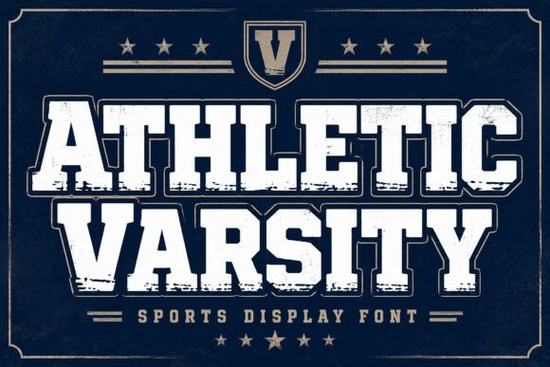
When it comes to creating designs that capture the spirit of sports and competition, the Athletic Varsity Font is a standout choice. This textured sports display font brings the raw energy of the stadium to your graphics, making it perfect for high-impact team sports branding, championship tournament apparel, and more.
Why Choose Athletic Varsity for Your Designs?
Athletic Varsity is designed with heavy, square collegiate block slabs, wrapped in an integrated contour outline. The rugged, weathered texture adds a touch of authenticity, making it ideal for designs that need to channel the grit, sweat, and glory of game day. Whether you're working on a project for a local sports team or a major athletic event, this font commands attention and conveys a sense of strength and determination.
Perfect for a Variety of Creative Projects
This typeface is not just limited to sports-related designs. It's also a great fit for:
- Stadium merchandise
- Esports team headers
- Collegiate gym apparel layouts
- Event posters and flyers
- Social media graphics
How to Use Athletic Varsity in Your Designs
Incorporating Athletic Varsity into your design projects is straightforward. Here are some tips to get you started:
- Choose the Right Background: To make the most of the font's texture, use a clean, simple background. This will help the text stand out and draw the viewer's eye.
- Play with Colors: Experiment with different color combinations to find what works best for your design. Bold, vibrant colors can complement the font's strong, energetic feel.
- Combine with Other Fonts: Pair Athletic Varsity with a simpler, more legible font for longer text. This will create a balanced and visually appealing design. For example, you might consider using a retro groovy font like Retro Groovy for a complementary look.
Where to Use Athletic Varsity
The versatility of Athletic Varsity makes it suitable for a wide range of applications. Here are a few ideas:
- Team Jerseys and Uniforms: Add a professional and competitive edge to your team's jerseys and uniforms.
- Event Banners and Posters: Create eye-catching banners and posters for sports events, tournaments, and other competitive gatherings.
- Branding and Logos: Use it for logos and branding materials to give your sports-related business a strong, memorable identity.
- Merchandise Design: Design t-shirts, mugs, and other merchandise that fans and supporters will love.
Final Thoughts
Athletic Varsity is a powerful and versatile font that can add a significant impact to your designs. Its authentic, textured style makes it a go-to choice for sports-related and high-energy projects. If you're looking to bring a sense of strength and competition to your work, Athletic Varsity is definitely worth considering.